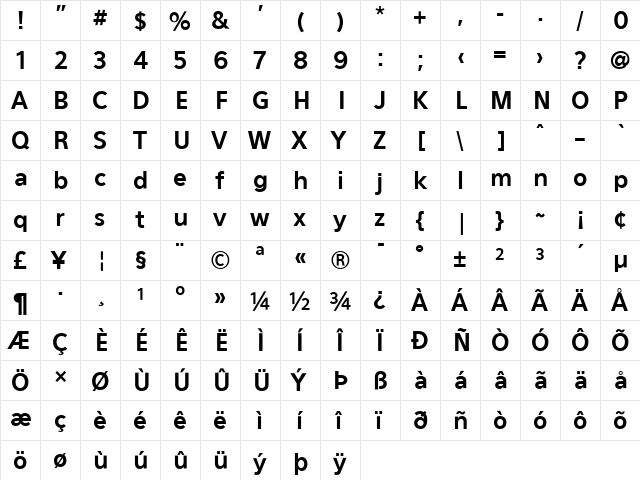
Eau Sans Bold
| Foundry | YOFonts |
| Designer | Yamaoka Yasuhiro |
Design Context for Eau Typeface
Eau offers clean, dependable letterforms without strong stylistic allegiance, making it a practical choice for designers who need flexibility. Its bold stroke weight gives it real presence on the page.